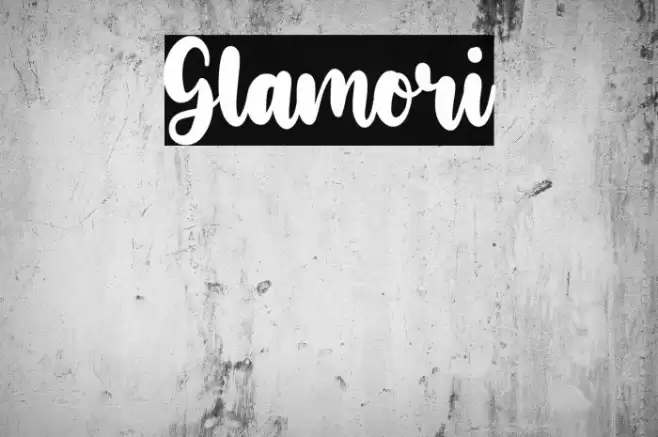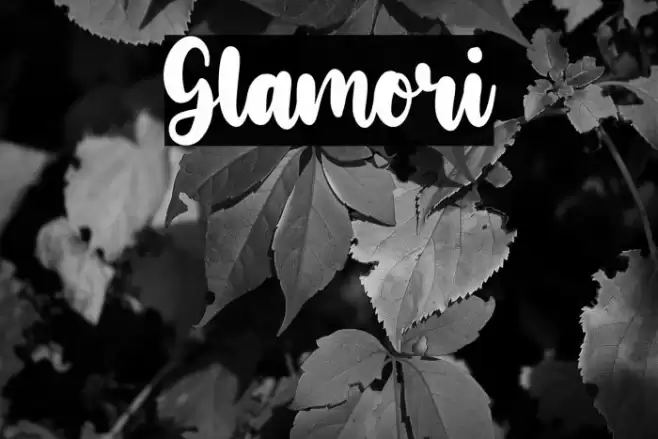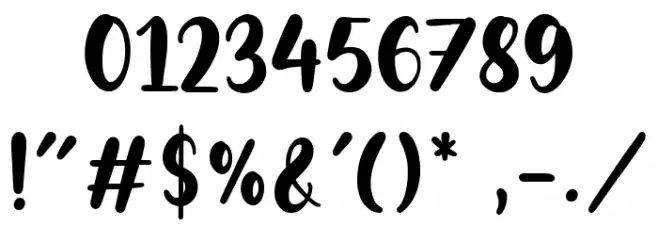
Glamori Font
Glamori Description
This font features a bold and expressive style with a modern flair. The uppercase letters are characterized by their thick, rounded strokes and playful curves, creating a sense of movement and energy. The lowercase letters maintain this lively aesthetic, with some letters featuring unique loops and swashes that add a touch of elegance. The numerals are consistent with the bold style, ensuring readability while maintaining the font's overall playful nature. Special characters are designed to complement the letters, with similar thickness and style, making them suitable for various design contexts.
A bold, modern font with playful curves and expressive strokes from Uncategorized fonts.
- Proposed Projects: Ideal for branding, headlines, posters, and social media graphics where a bold and lively impression is desired.